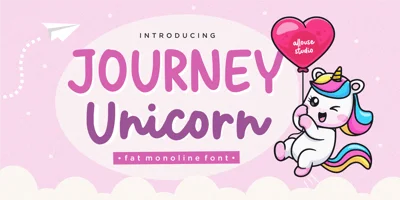
Journey Unicorn Font
Journey Unicorn Font is ideal for magical children's book illustrations, fantasy-themed party invitations, enchanted fairy tale designs, mystical spa branding, unicorn-themed products, dreamy wedding stationery, magical therapy centers, children's fantasy apps, whimsical art galleries, and any enchanting project that celebrates wonder, imagination, and the transformative power of believing in magic.
What makes Journey Unicorn Font exciting is its ethereal beauty that captures the transformative magic of personal growth and the enchanting power of following one's dreams. This typeface embodies the spirit of mystical adventure with flowing letterforms that seem to shimmer with stardust and dance with celestial grace. The font's magical character makes it perfect for brands and projects that want to communicate transformation, hope, and the boundless possibilities that await those who dare to believe in their own unique magic.
The Journey Unicorn Font family includes multiple weights and mystical variations, featuring light, regular, and bold versions along with decorative swashes, magical flourishes, and alternate characters inspired by fairy tale calligraphy. This comprehensive collection allows designers to create enchanting typography that maintains the font's signature magical character while providing flexibility for various fantasy and inspirational design applications.
When exploring authentic fantasy typography, Journey Unicorn Font offers designers an exceptional opportunity to work with a typeface that genuinely captures the spirit of personal transformation and magical possibility. This font demonstrates innovative design thinking by incorporating the flowing grace and ethereal beauty that define both unicorn mythology and the human journey toward self-discovery and empowerment.
Professional designers appreciate Journey Unicorn Font for its ability to instantly evoke feelings of wonder, transformation, and magical possibility across various media platforms. The font's enchanting character makes it particularly effective for wellness brands, children's entertainment companies, and inspirational organizations seeking to create meaningful connections with audiences exploring personal growth and creative expression.
The timeless appeal of Journey Unicorn Font lies in its perfect representation of hope and transformation that continues to inspire people of all ages to believe in their own unique magic. This typeface serves as a powerful reminder that every individual possesses the ability to create positive change and manifest their dreams into reality.
For creative professionals working with inspirational and fantasy brands, Journey Unicorn Font represents the ultimate typography solution that brings authentic magical energy and transformative beauty to any application, ensuring designs reflect the wonder and infinite possibilities that define the most meaningful journeys of personal discovery and growth.